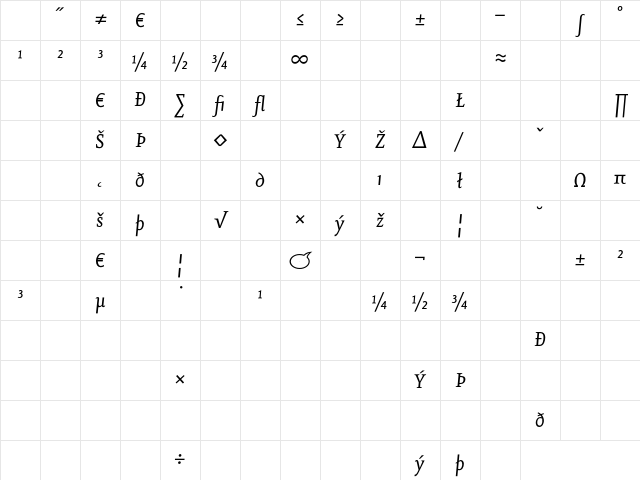
Eureka Regular Italic Exp
Style: Regular Italic Exp
Eureka Family
Eureka Regular Italic Exp
Design Context for Eureka
Eureka is a composed and adaptable typeface that performs quietly and consistently across a wide range of design contexts. The slanted form adds forward momentum and visual energy.
Pro Tip: Use Eureka for emphasis, pull quotes, and subheadings where its slanted energy can add rhythm to the layout.